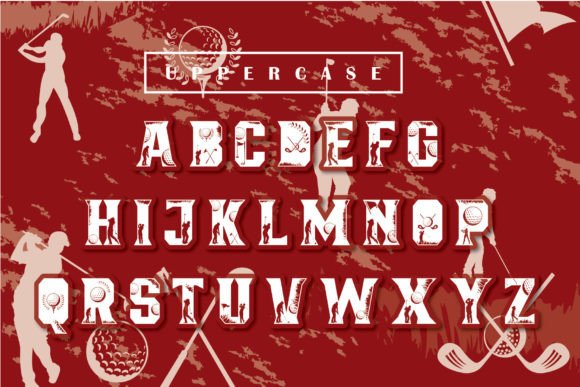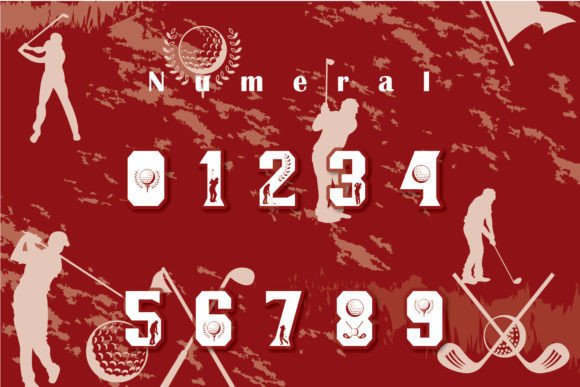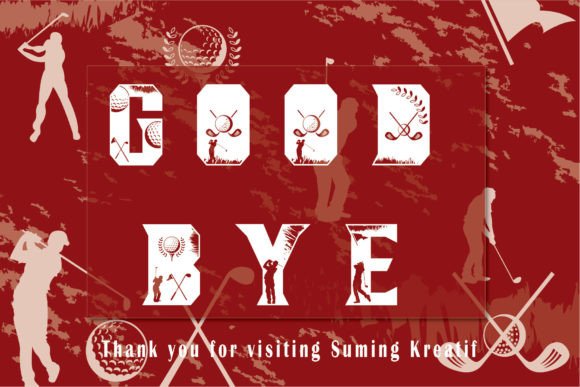
Golf Man Font: A Unique and Modern Display Font for Designers
Are you tired of using the same old fonts for your design projects? Look no further than the Golf Man Font, a unique and modern display font that is sure to make your designs stand out. Inspired by the game of golf, this font features playful elements that add a touch of fun and whimsy to any project.
What is Golf Man Font?
Golf Man Font is a bold and clean display font that is perfect for branding, posters, and other design projects that demand attention. Its unique and modern design makes it ideal for designers who want to add a touch of personality to their work. Whether you’re designing for a golf event or just looking to add some fun to your designs, this font is sure to hit the sweet spot.
Key Features of Golf Man Font
• Unique and Modern Design: Golf Man Font features a unique and modern design that is sure to make your designs stand out.
• Playful Elements: Inspired by the game of golf, this font features playful elements that add a touch of fun and whimsy to any project.
• Bold and Clean Lines: The font’s bold and clean lines make it perfect for branding, posters, and other design projects that demand attention.
• Versatile: Golf Man Font is versatile and can be used for a variety of design projects, from golf event branding to posters, flyers, and more.
Why Use Golf Man Font?
There are many reasons why designers and crafters should consider using Golf Man Font for their projects. Here are just a few:
• Add a Touch of Personality: Golf Man Font adds a touch of personality to any design project, making it perfect for designers who want to stand out from the crowd.
• Perfect for Golf Events: If you’re designing for a golf event, Golf Man Font is a must-have. Its golf-inspired design elements make it perfect for creating branded materials that are sure to impress.
• Easy to Read: Despite its bold and playful design, Golf Man Font is easy to read, making it perfect for use in a variety of design projects.
How to Use Golf Man Font
Using Golf Man Font is easy. Here are just a few tips to get you started:
• Pair it with Other Fonts: Golf Man Font pairs well with other fonts, making it easy to create visually appealing designs.
• Use it for Headings: Golf Man Font is perfect for use in headings, where its bold and playful design can really make an impact.
• Experiment with Colors: Golf Man Font looks great in a variety of colors, so don’t be afraid to experiment and find the perfect color for your design.
In conclusion, Golf Man Font is a unique and modern display font that is sure to make your designs stand out. Its playful elements inspired by the game of golf make it perfect for adding a touch of fun and whimsy to any project. Whether you’re designing for a golf event or just looking to add some personality to your designs, Golf Man Font is a must-have for designers and crafters.
Here are just a few tips for designers and crafters who want to get the most out of Golf Man Font:
• Be Creative: Don’t be afraid to experiment and try new things with Golf Man Font.
• Use it for Branding: Golf Man Font is perfect for use in branding, where its bold and playful design can really make an impact.
• Pair it with Images: Golf Man Font pairs well with images, making it perfect for use in posters, flyers, and other visual materials.